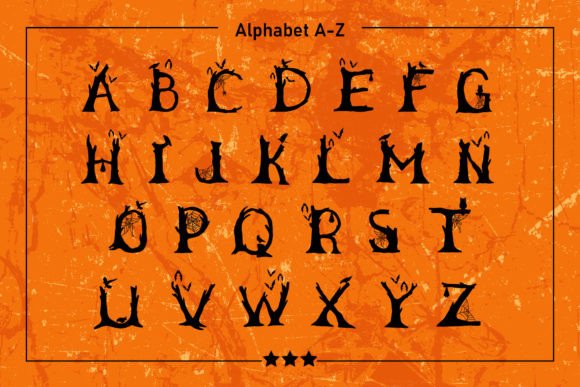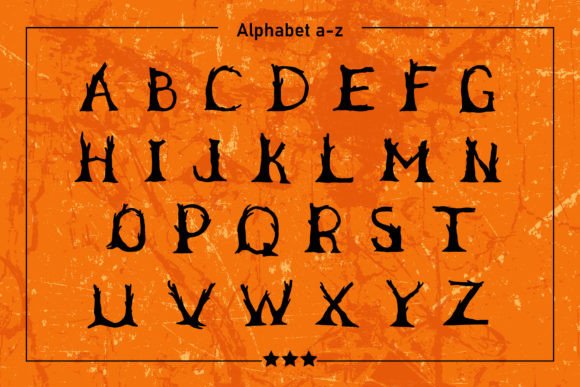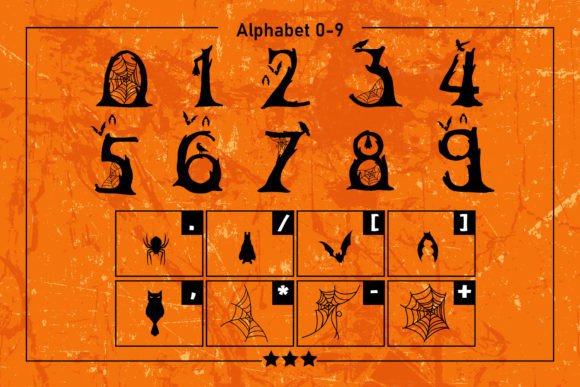
Night Time Font
About the Night Time Font
Get ready to be inspired by Night Time Font, a fresh and dynamic typeface for modern creators. Night Time is a fun decorative font with a Halloween vibe. It is suitable for a variety of designs such as Halloween and children’s themes. It is perfect for logos, T-shirts, papers, print designs, website headers, photo frames, flyers, music covers, posters, image sliders, and much more.
Night Time Font’s playful, slightly spooky character makes it ideal for projects needing a touch of Halloween whimsy or a fun, child-friendly aesthetic. It excels in headlines, short text blocks on posters and flyers, and as a decorative element in logos and packaging for related themes. However, its decorative nature makes it unsuitable for body text or UI elements requiring high readability.
Consider pairing Night Time with a clean sans-serif like Open Sans for contrast and improved readability in supporting text. For a more whimsical feel, a rounded, friendly sans-serif like Lato could also work well. If a more sophisticated look is desired, a classic serif such as Garamond could provide elegant balance.
The overall personality of Night Time Font is undeniably fun and slightly mischievous, lending itself best to brands and projects targeting a young audience or those seeking a light-hearted, festive touch. Avoid using it where professionalism or seriousness is paramount.
Night Time Font Usage Examples
Night Time Font Example